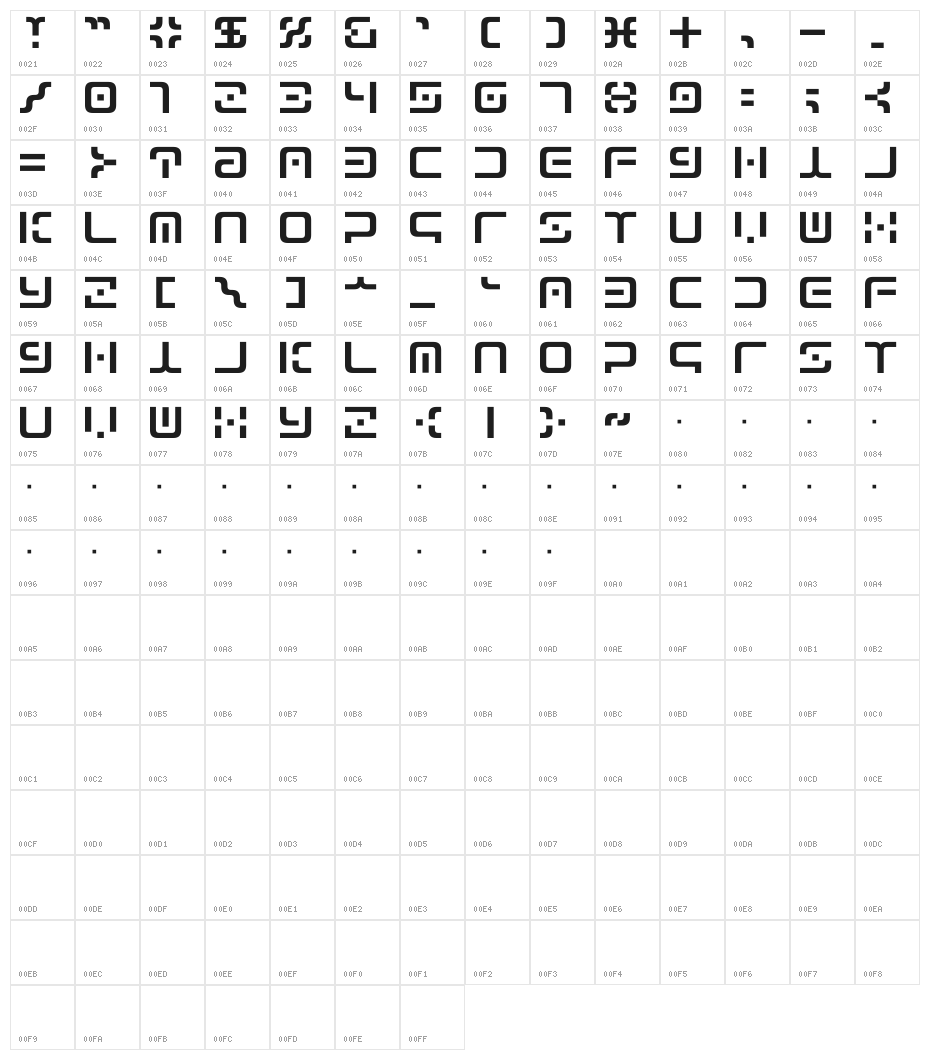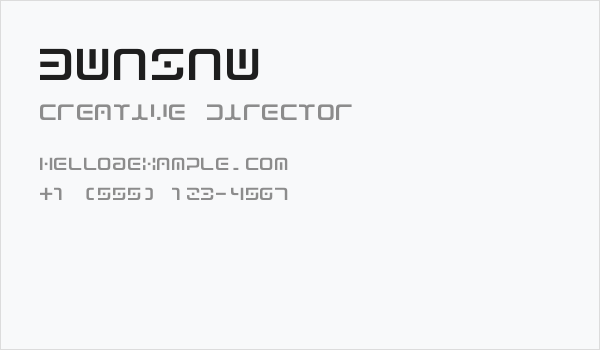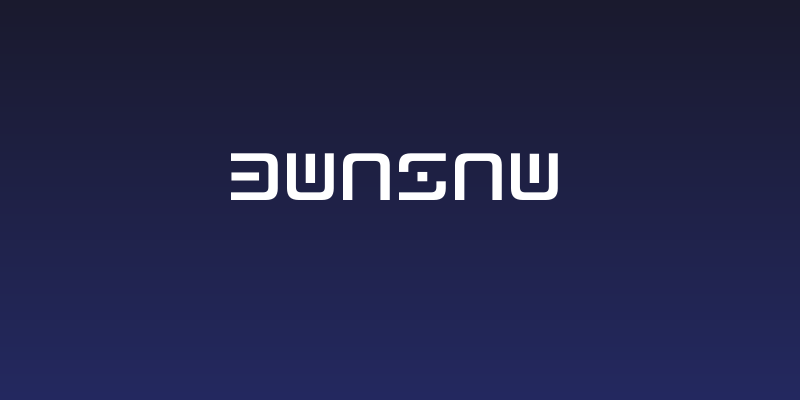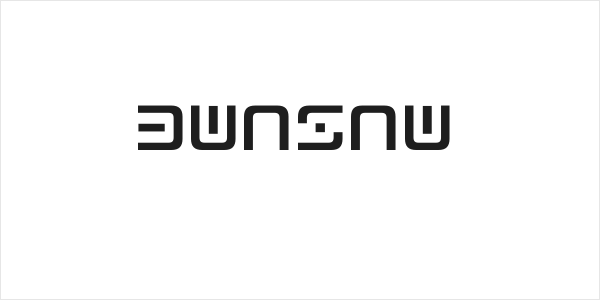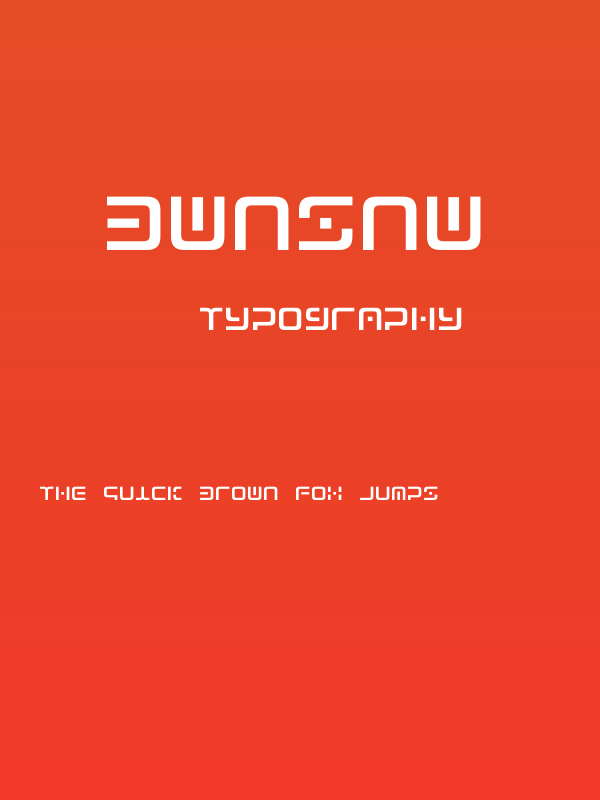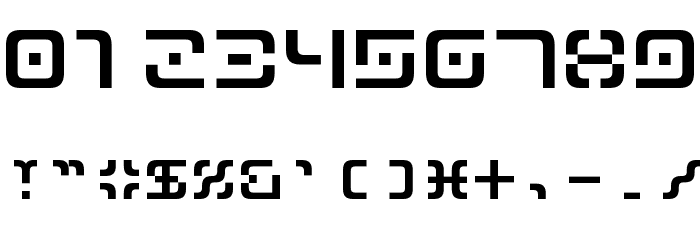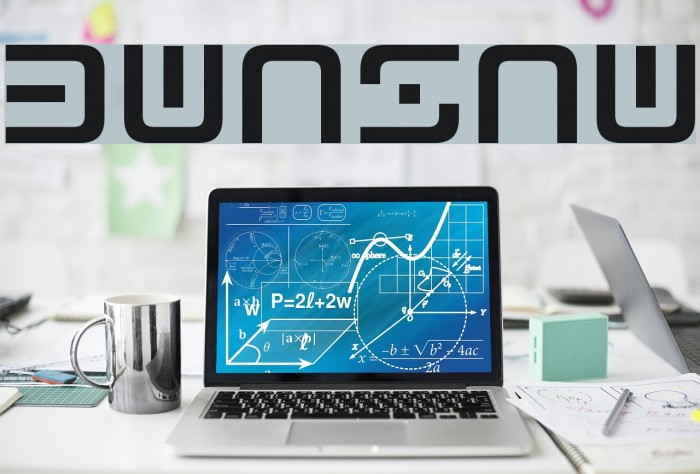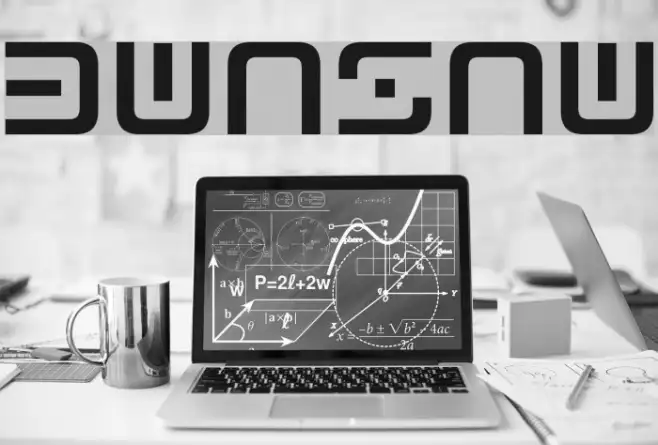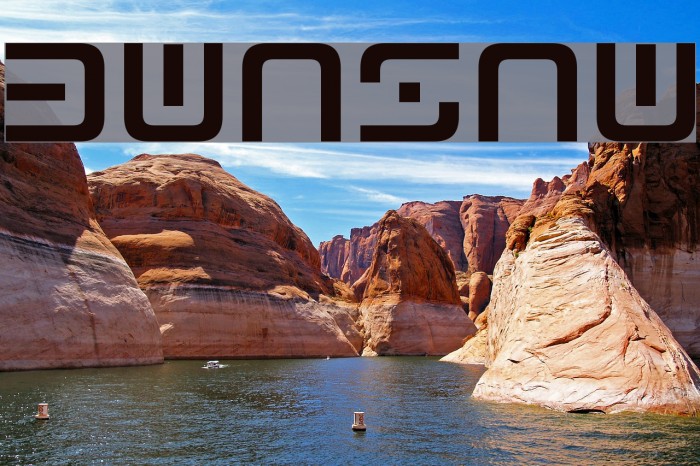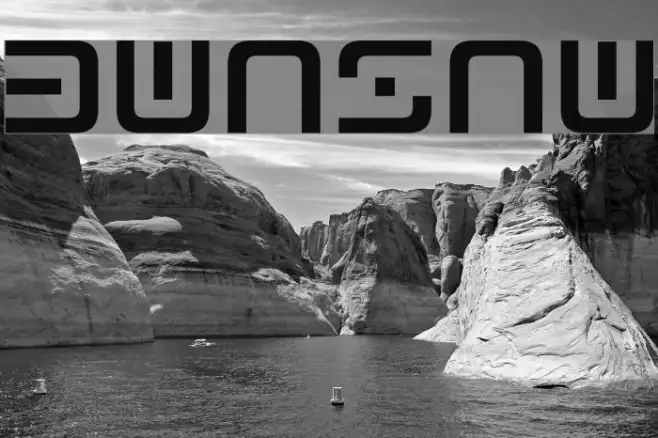
Bwnsnw Font
Bwnsnw Description
This font features a futuristic and geometric design, characterized by its bold and angular letterforms. The characters are constructed with a consistent stroke width, giving them a uniform appearance. The design incorporates unique cutouts and angles, creating a sense of movement and modernity. The uppercase and lowercase letters maintain a similar style, with the lowercase being slightly more compact. Numbers and special characters follow the same design principles, ensuring cohesion across all glyphs. This font's distinct style makes it suitable for projects that require a modern and tech-inspired aesthetic.
| Proposed Projects | Ideal for technology branding, sci-fi movie posters, video game titles, and modern digital interfaces. |